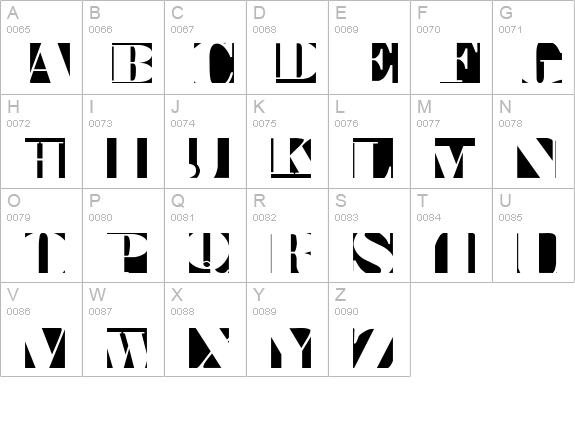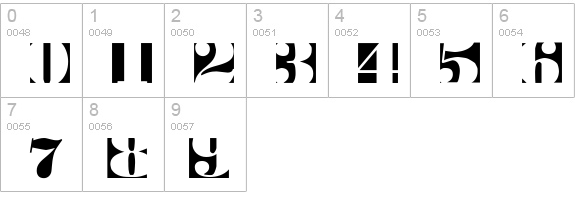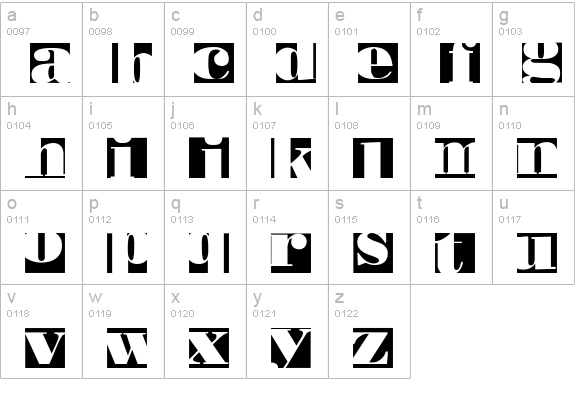
BodoblackSquares Font Details
BodoblackSquares font is a modern and stylish typeface that exudes elegance and sophistication. With its bold and square design, this font is perfect for creating eye-catching headlines, logos, and posters. The clean lines and geometric shapes give BodoblackSquares a sleek and contemporary look that will make your designs stand out. Best of all, BodoblackSquares is available for free download at FontsMarket.com. Whether you're a designer looking to add a unique touch to your projects or a business owner wanting to elevate your branding, BodoblackSquares is the perfect choice. Download this striking font today and unleash your creativity!